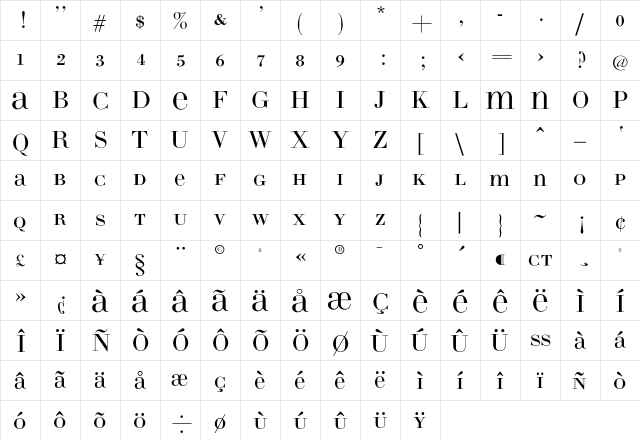
BodoniTwSixSL Regular Font Preview
BodoniTwSixSL Regular
Design Context for BodoniTwSixSL Typeface
BodoniTwSixSL takes a measured approach to typography — its balanced proportions and neutral character make it a reliable workhorse for both digital and print work.